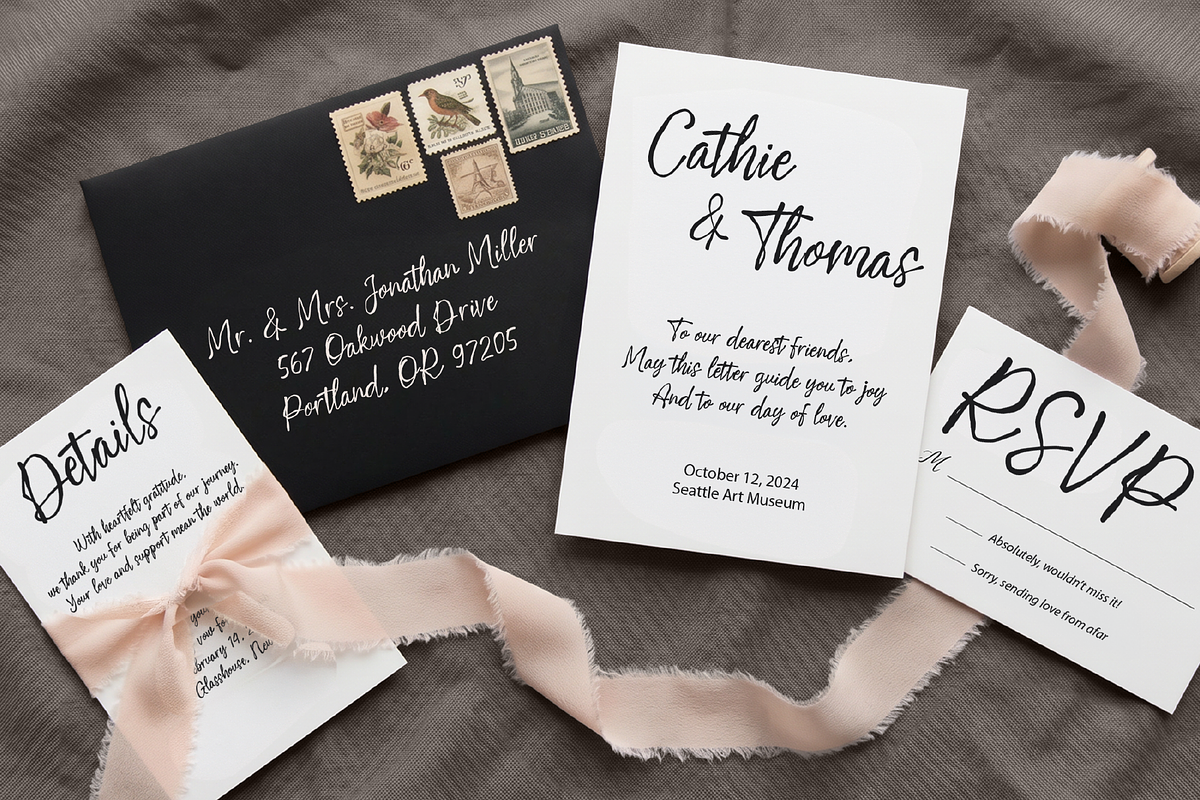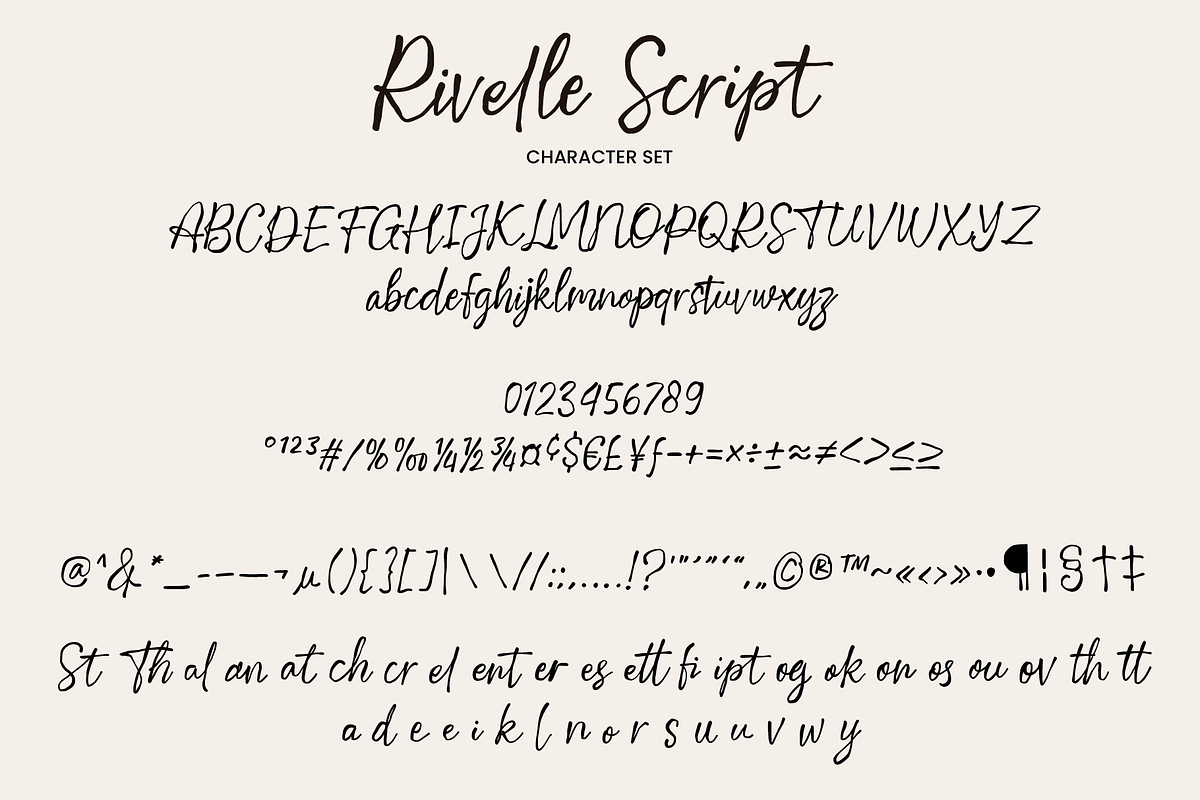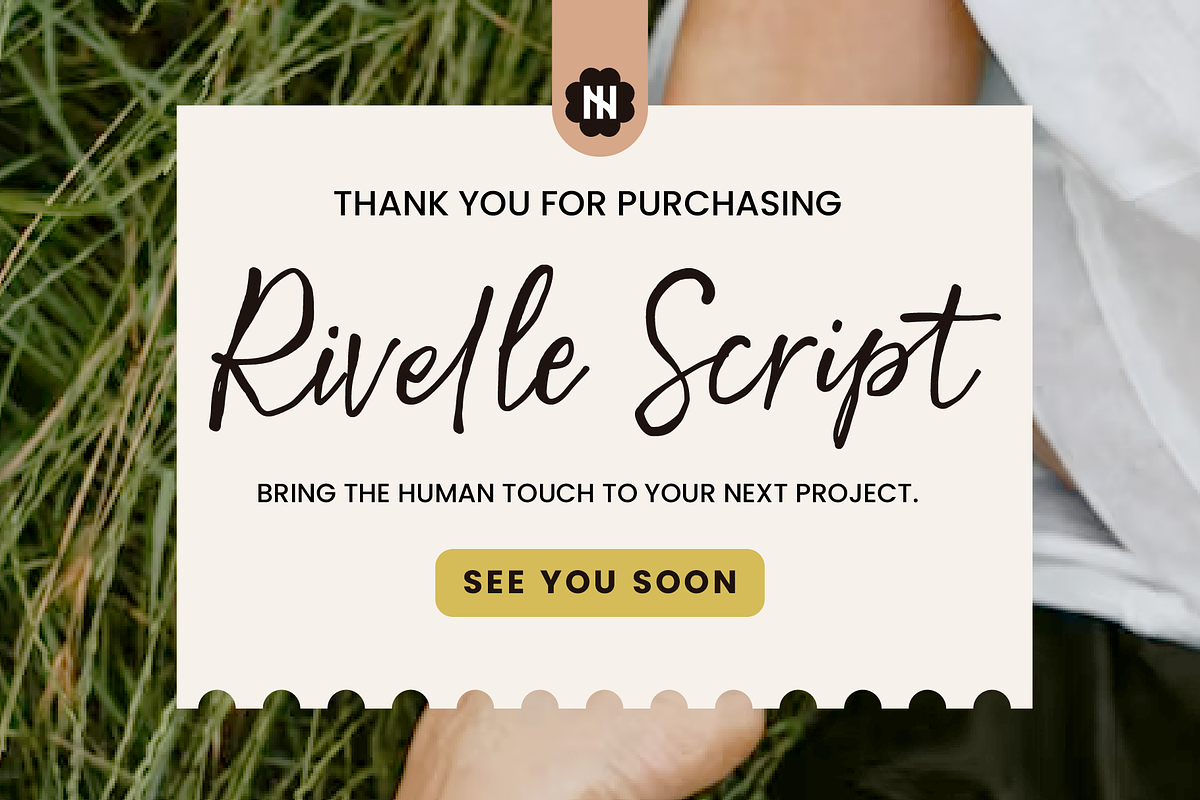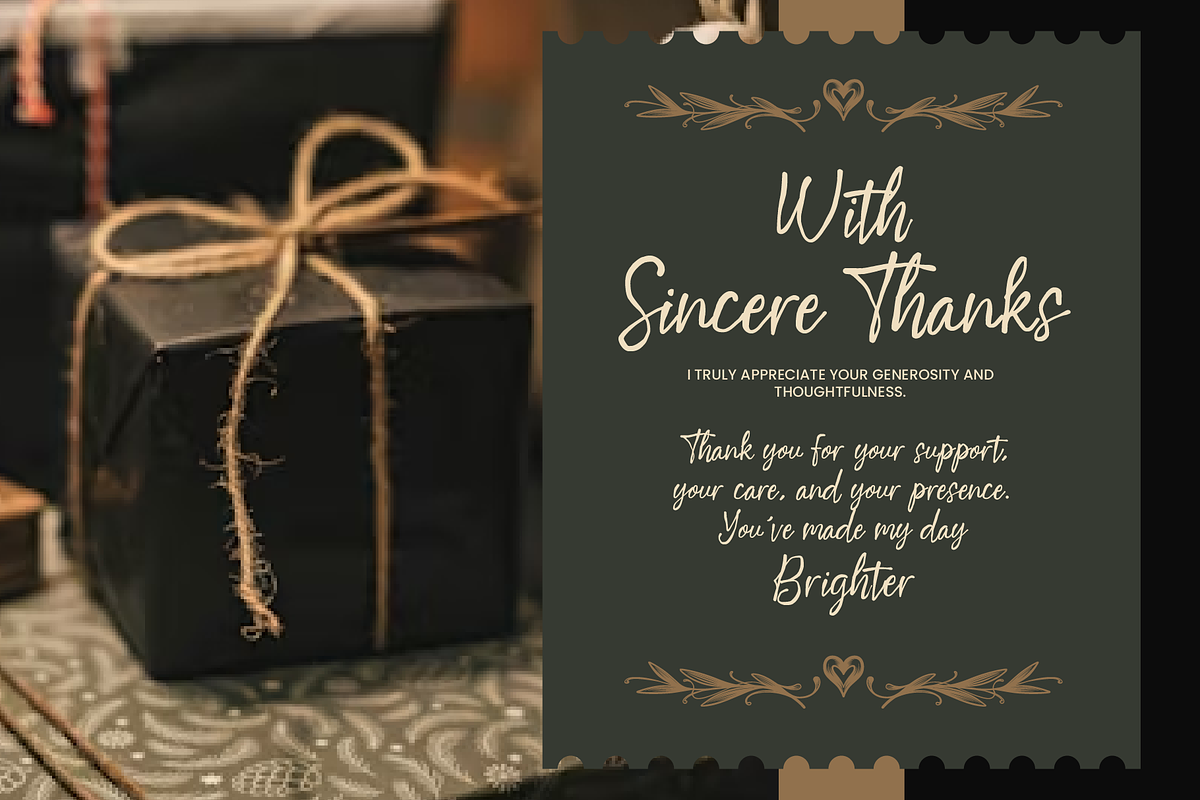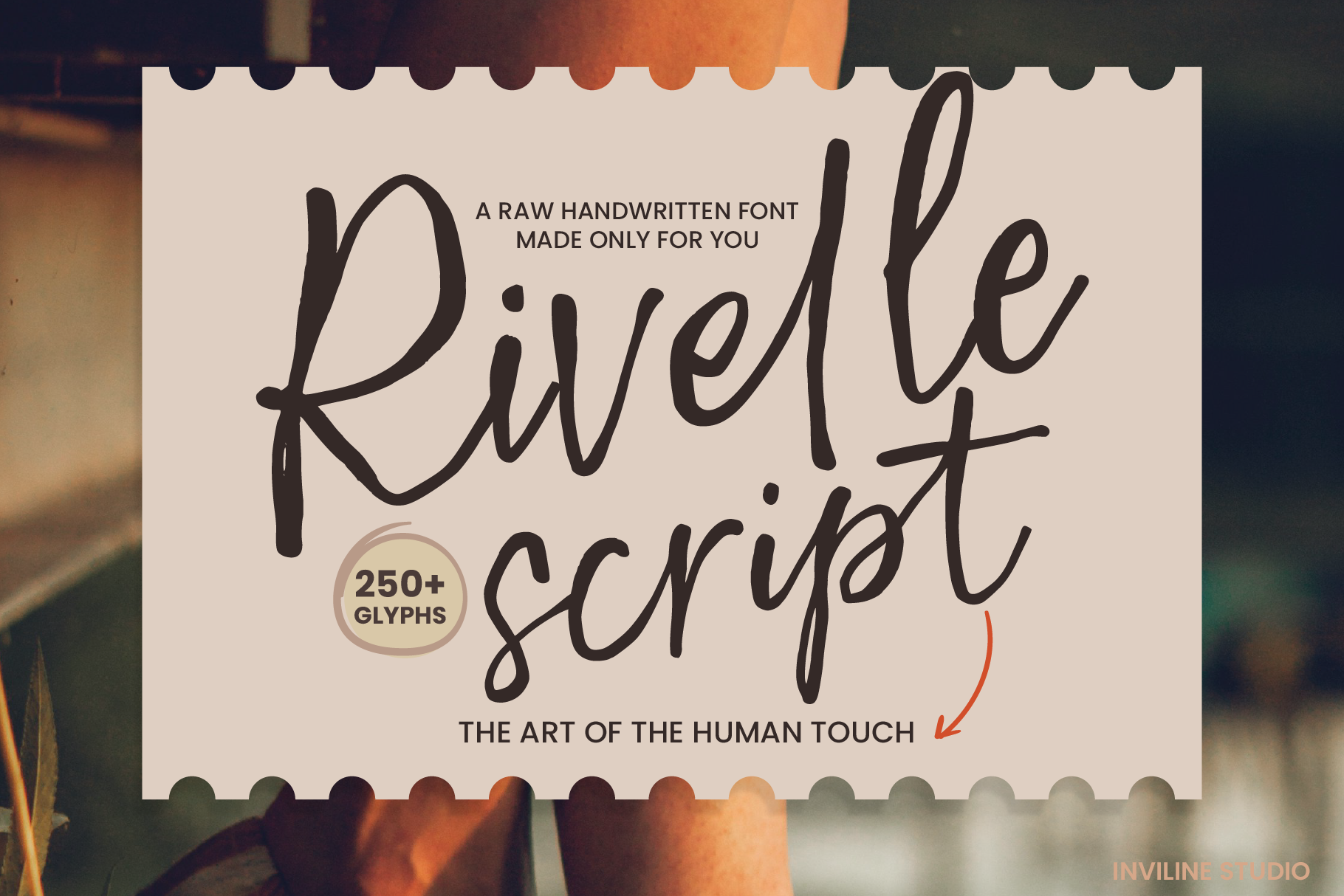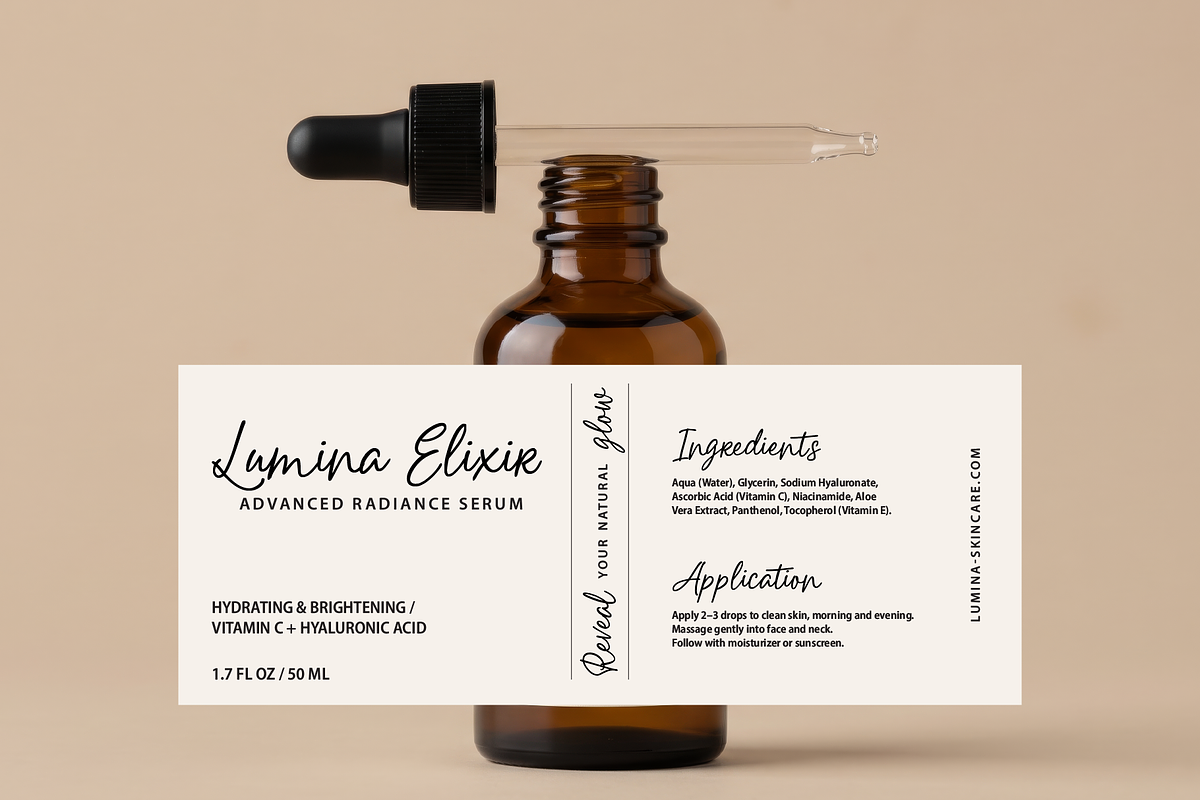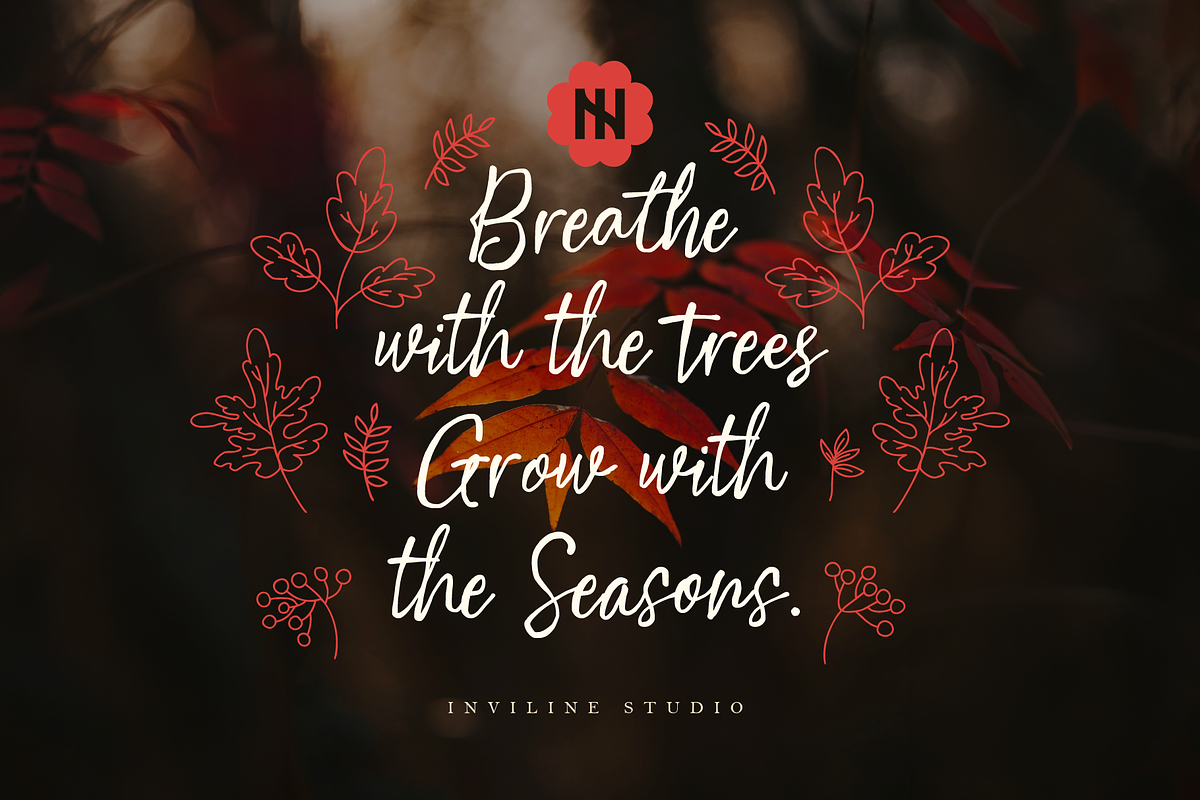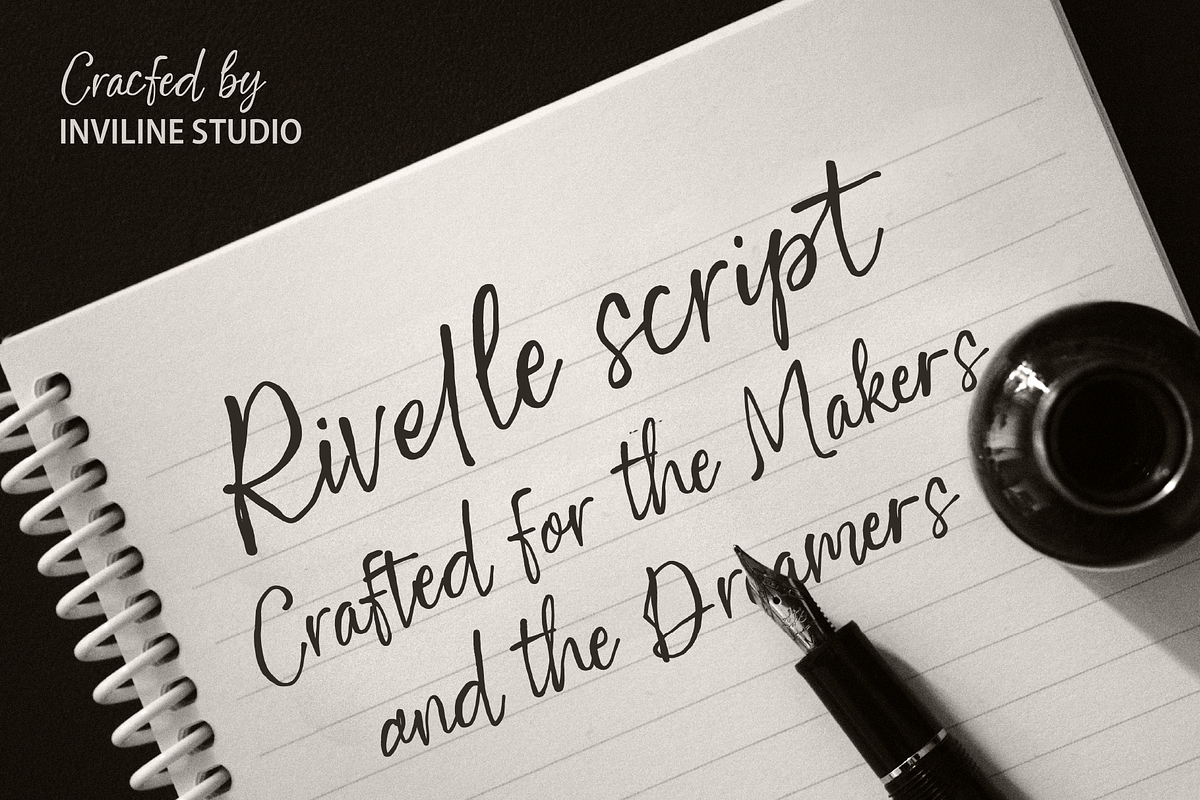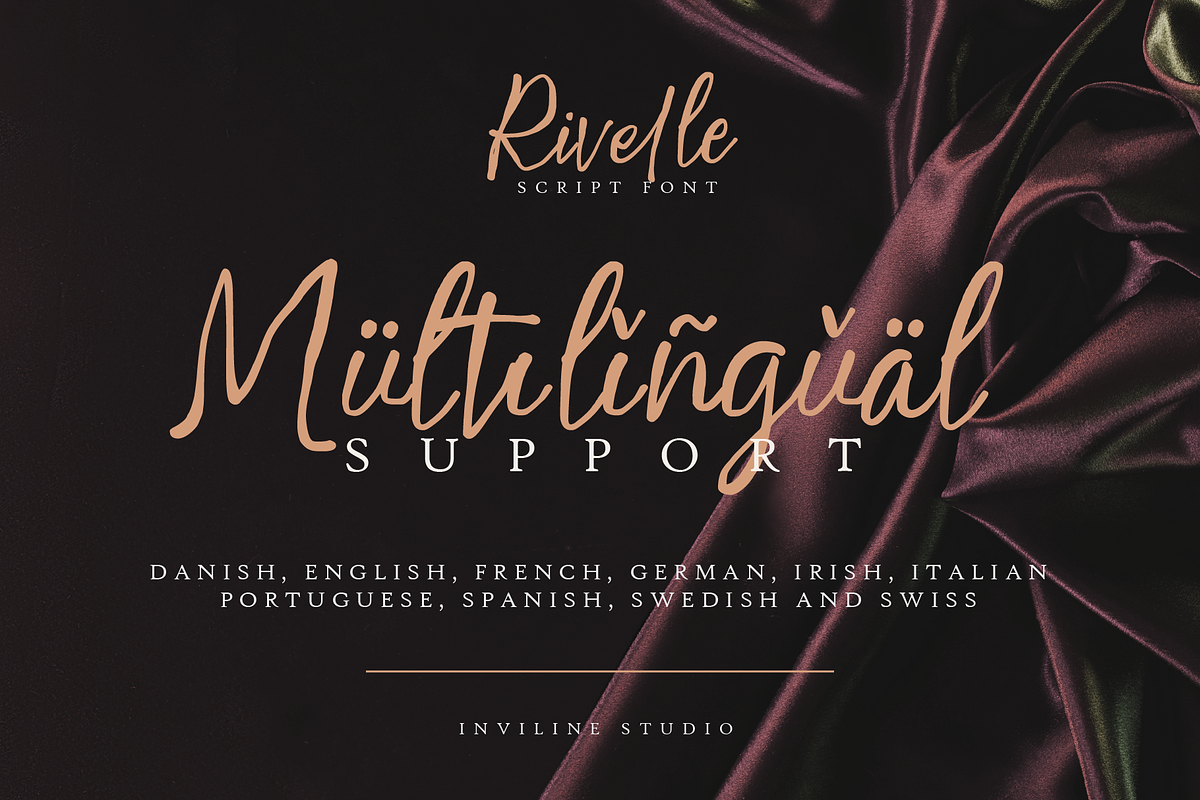
Rivelle Script - Handwritten Font
Rivelle Script — Raw Handwritten Font
Rivelle Script is a raw handwritten script font inspired by personal notes, journals, and authentic human handwriting. With natural strokes, relaxed letterforms, and an imperfect rhythm, it brings warmth, personality, and a handcrafted feel to every design.
Perfect for branding, logos, packaging, wedding stationery, invitations, quotes, editorial layouts, lifestyle projects, and handmade products.
Authentic handwritten script style
250+ glyphs included
Uppercase & lowercase characters
Natural handwritten variations
Perfect for logos, headlines, and short phrases
Ideal For
Brand identity
Logo design
Packaging
Wedding invitations
Stationery
Beauty & lifestyle branding
Editorial design
Product labels
Design Tips
Rivelle Script works best for medium to large text sizes, especially names, titles, quotes, and short messages. Pair it with clean serif or sans serif fonts for a modern handcrafted look.